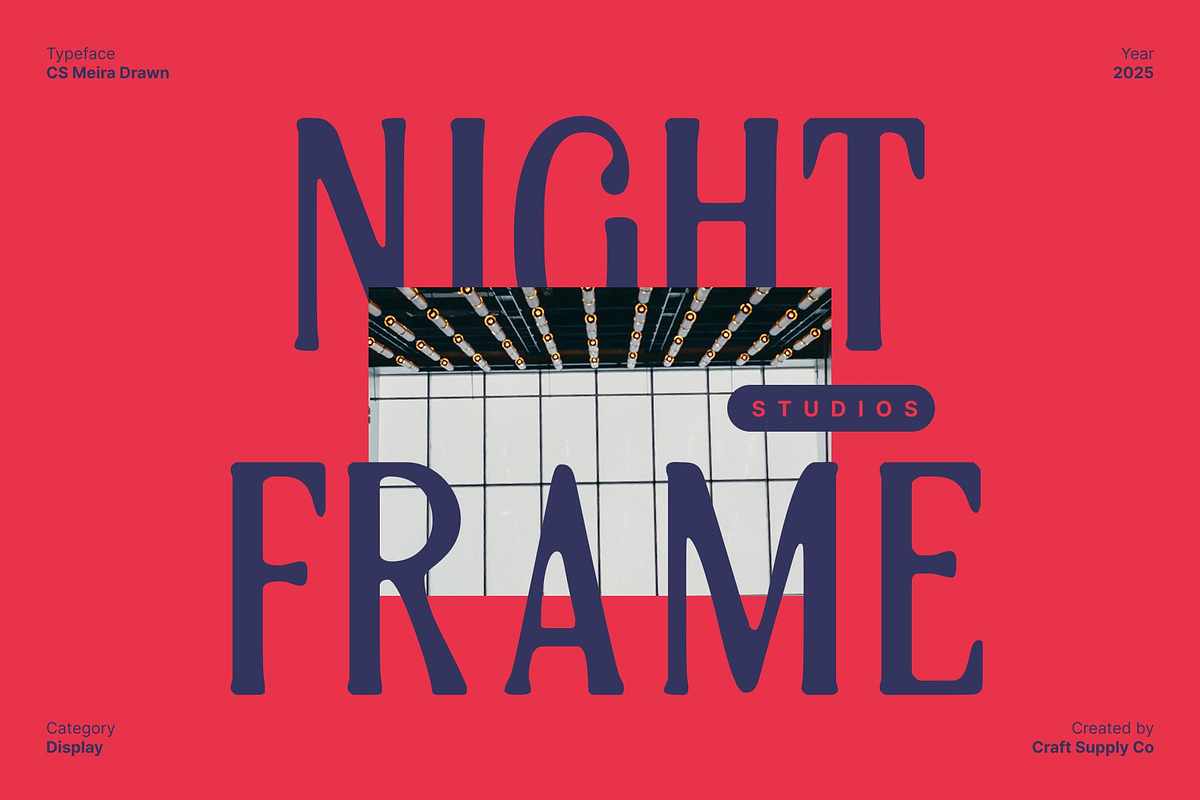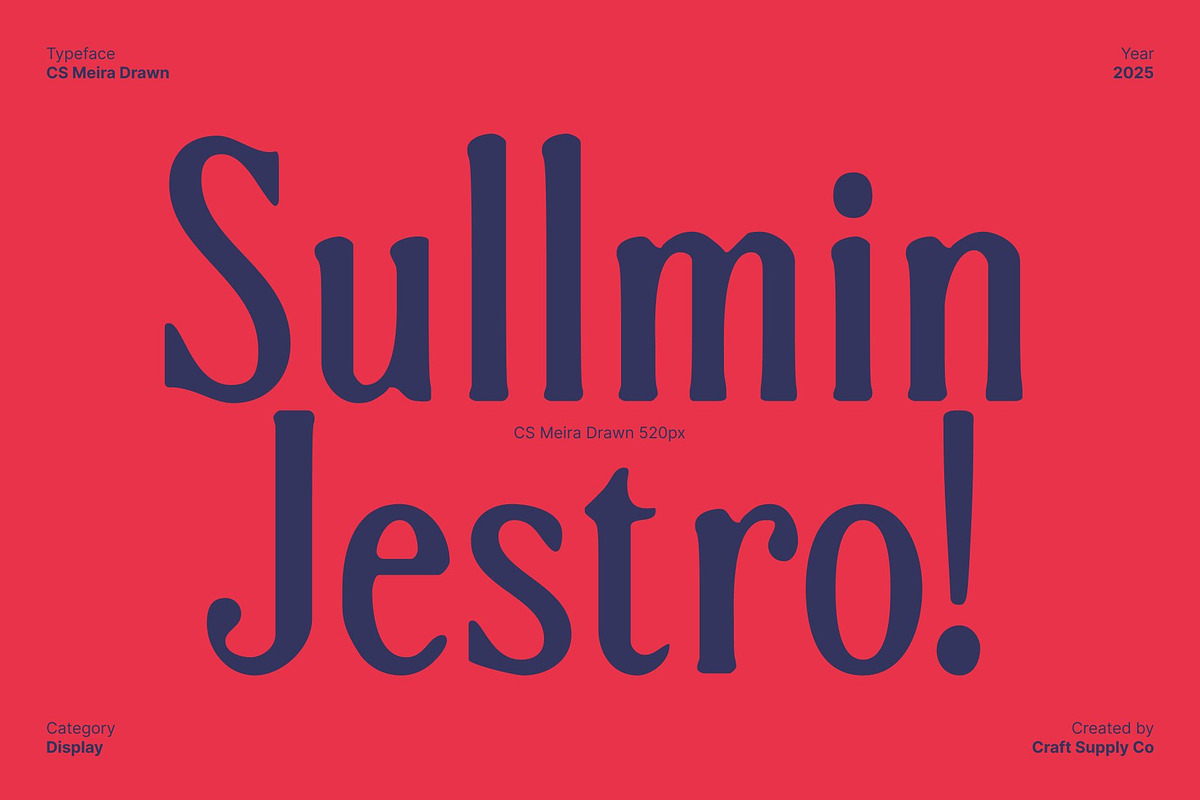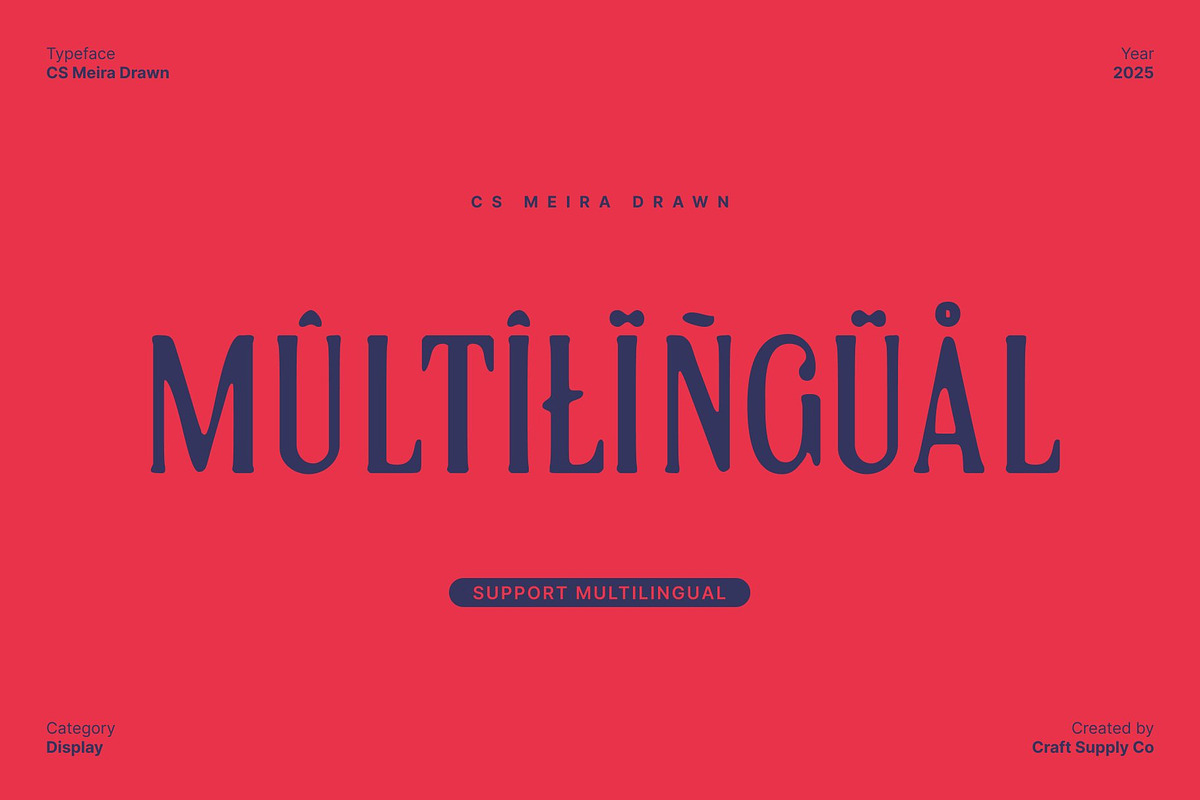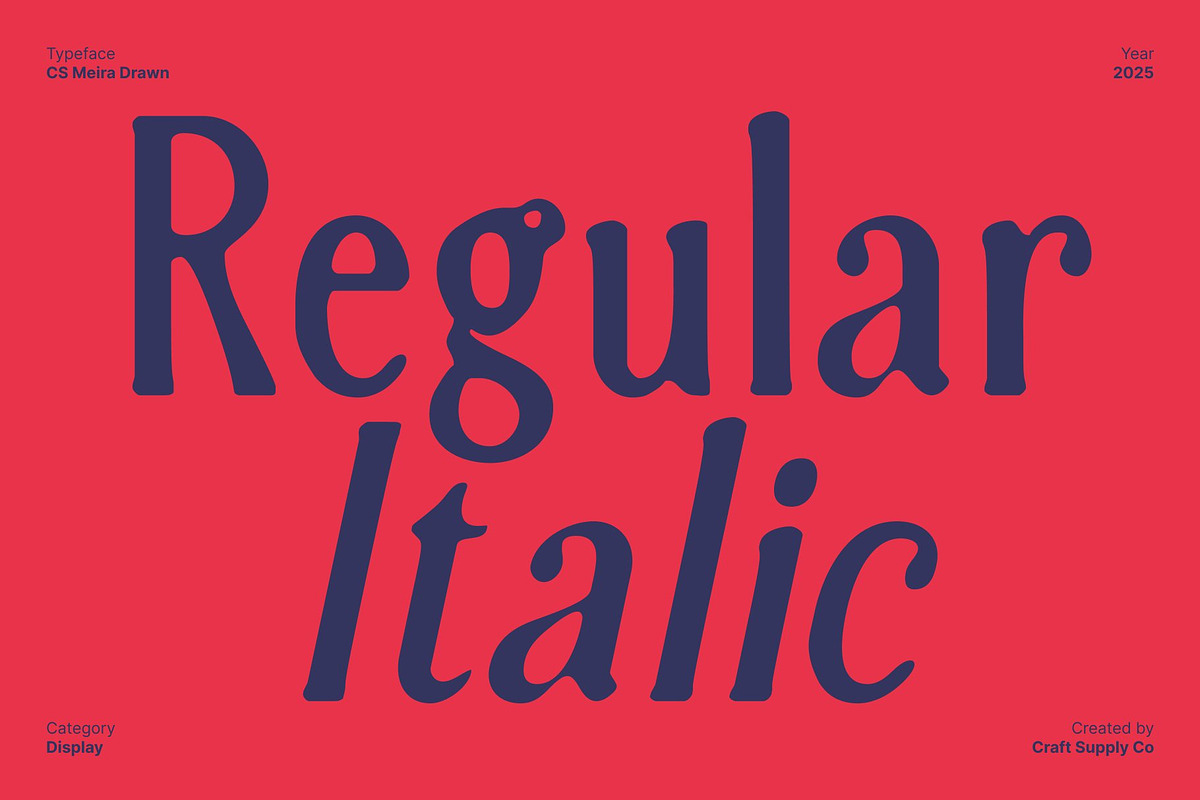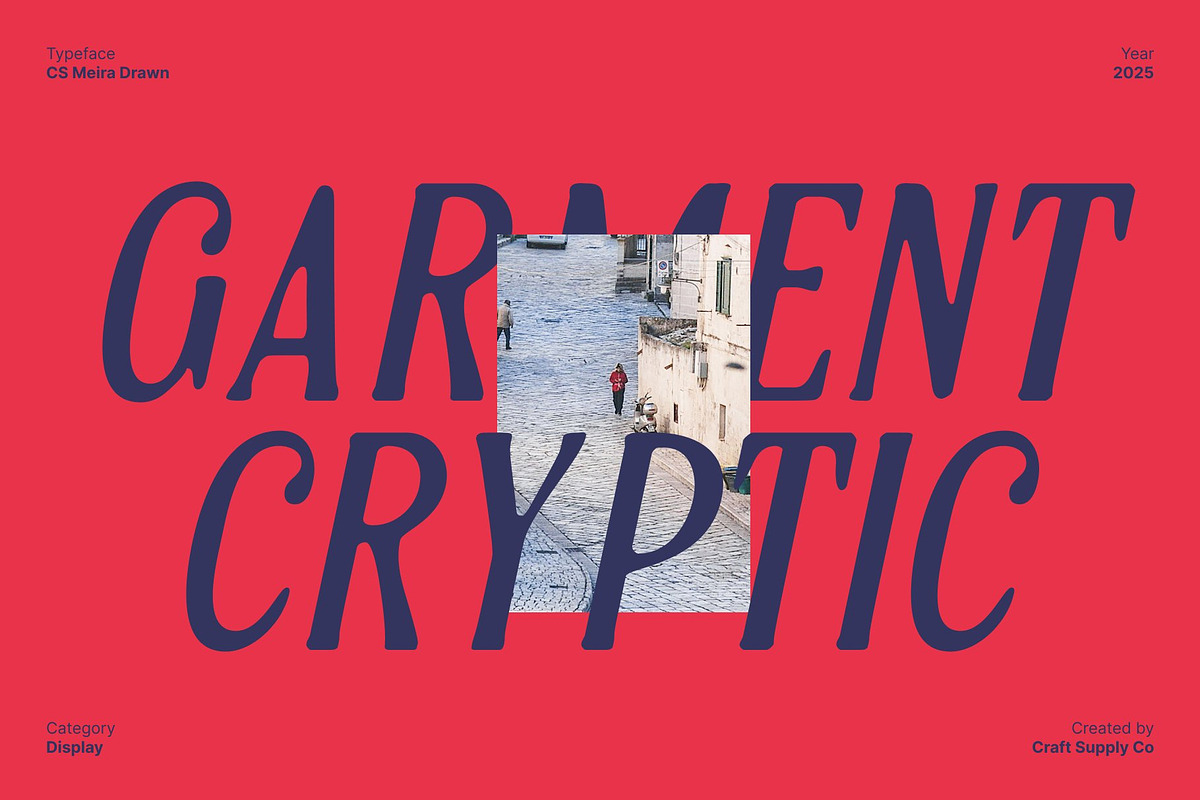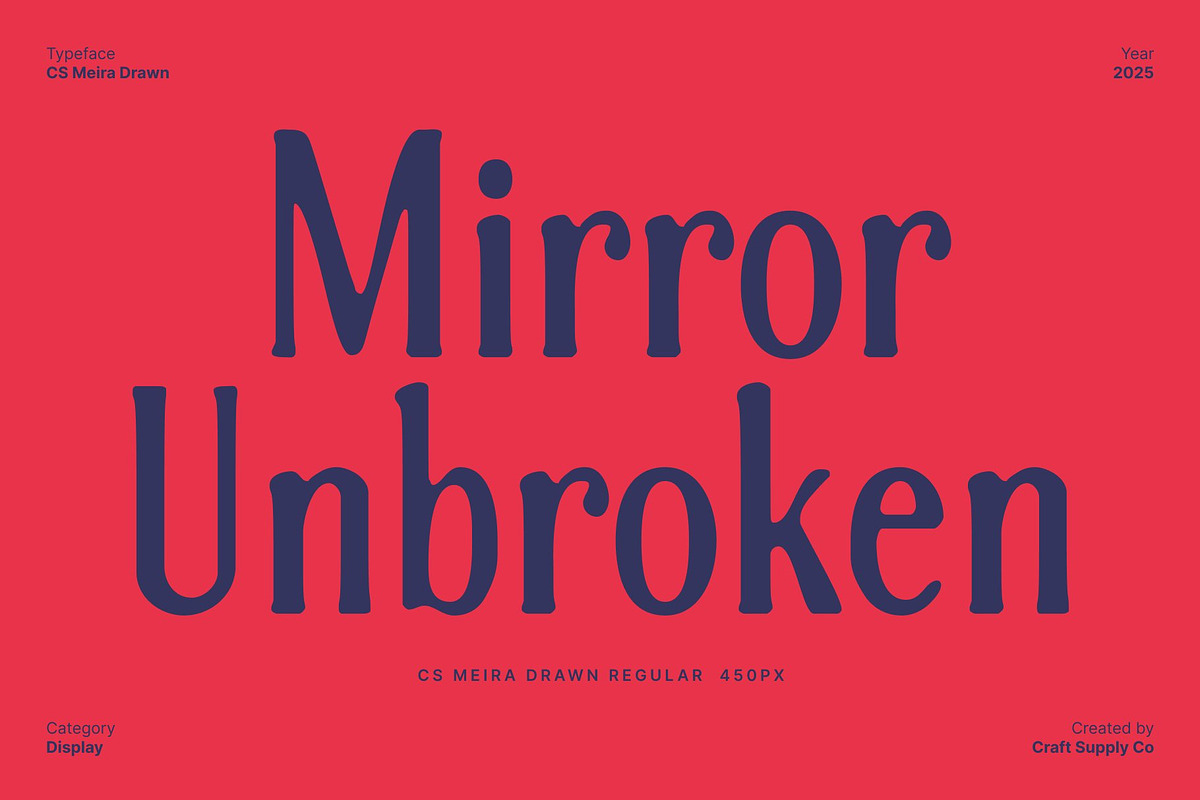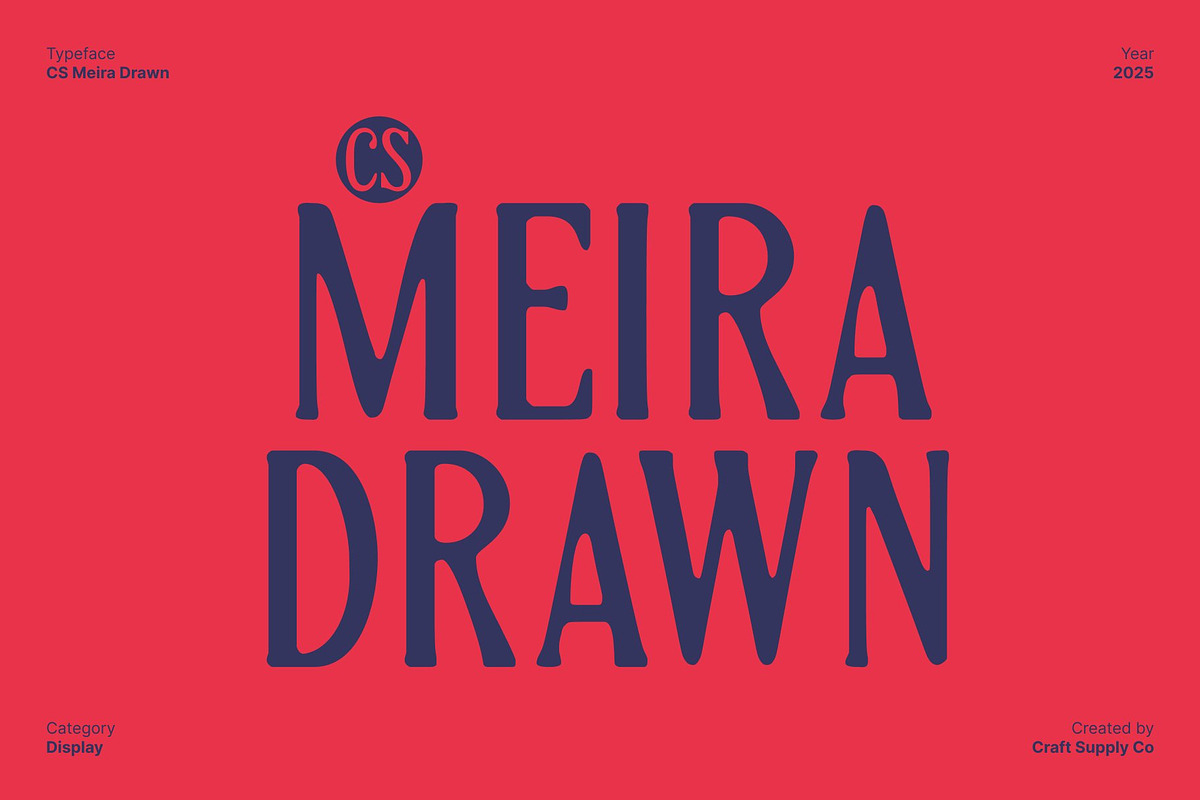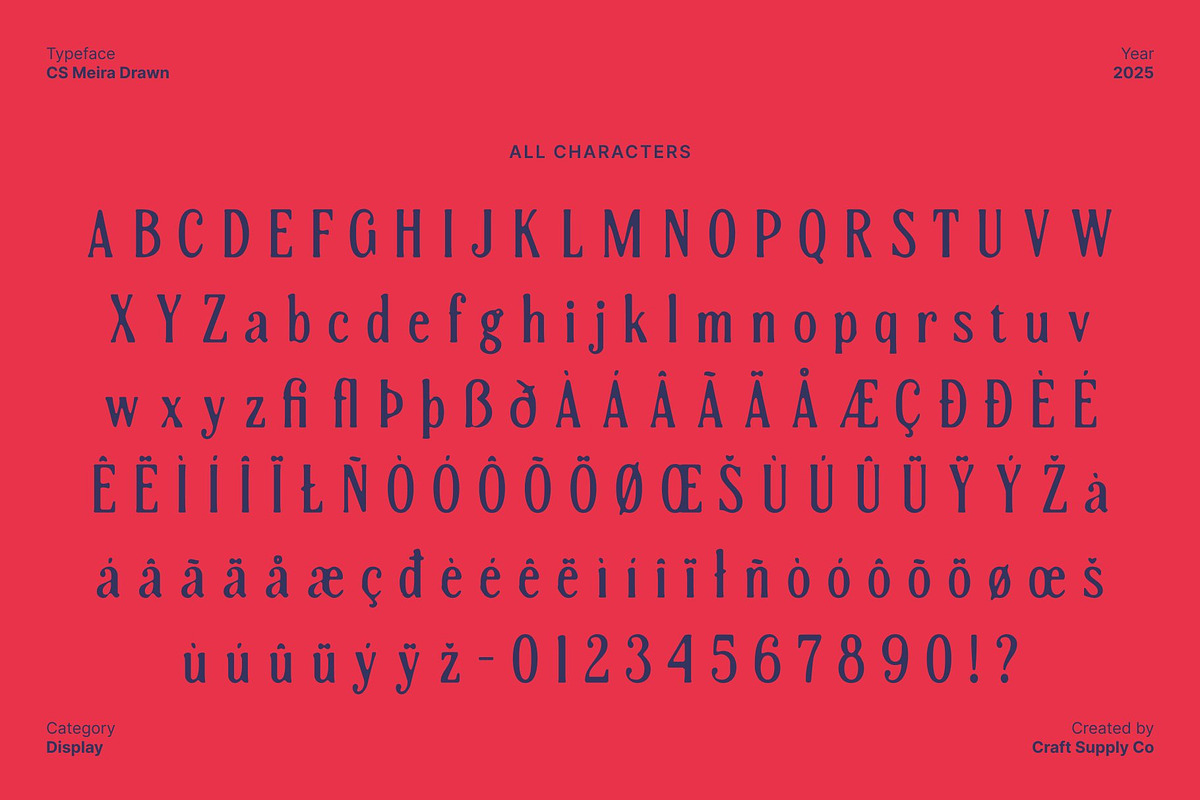
CS Meira Drawn
CS Meira Drawn – Elegant Serif Font with Refined, Soft Texture
Refined Curves with Timeless Elegance This is an serif font crafted with beautifully refined curves that create a high-end, minimalist aesthetic. Inspired by Renaissance typography, it combines classical proportions with modern clarity, resulting in a typeface that feels both timeless and sophisticated. Its balanced letterforms make it ideal for designs that require elegance and subtlety.
Soft Drawn Effect for Artistic, Approachable Style Enhancing its refined structure, features a drawn texture that adds softness and warmth to the letterforms. The hand-crafted feel introduces a subtle artisanal quality, making the font more approachable while retaining its sophisticated character. This texture transforms traditional elegance into a visually expressive, contemporary style.
Perfect for Advanced Book and Editorial Design This font excels in editorial and literary applications, bringing clarity, readability, and aesthetic refinement to any publication. Its timeless serif forms and soft texture make it perfect for books, magazines, and other text-rich layouts, where elegance and subtle artistic detail are key.
Versatile for Branding, Packaging, and Creative Projects Beyond editorial use, adapts beautifully to premium branding, packaging, and high-end design projects. Its harmonious curves and soft drawn texture provide versatility across various display applications, ensuring your work exudes sophistication, artistry, and modern-classic appeal.
- CS Meira Drawn Regular
- CS Meira Drawn Italic